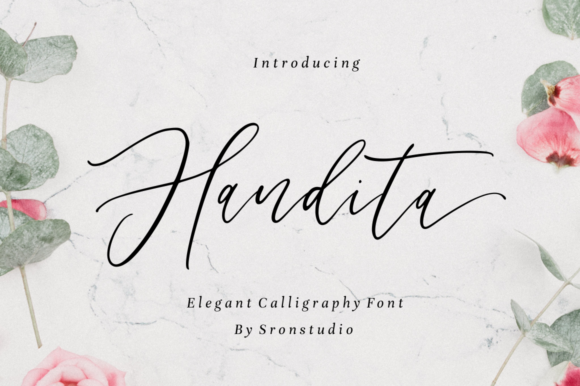
Looking for a font that is both classic and contemporary? Look no further than Handita Font! This incredible handwritten font, created by Sronstudio, updates classic calligraphy with a contemporary twist, resulting in a font with heaps of personality that is sure to catch your eye.
Handita Font is a script font, which means it is perfect for adding a personal touch to your designs. Whether you are working on a wedding invitation, a logo, or a social media graphic, Handita Font will give your project a unique and stylish look that is sure to impress.
What sets Handita Font apart from other script fonts on the market is its light and striking design. The thin, delicate lines of the font give it a sense of elegance and sophistication, while the bold strokes add a touch of drama and flair.
If you are looking for a font that will help you stand out from the crowd, then Handita Font is the perfect choice. Its eye-catching design is sure to grab the attention of anyone who sees it, and its versatility makes it suitable for a wide range of projects.